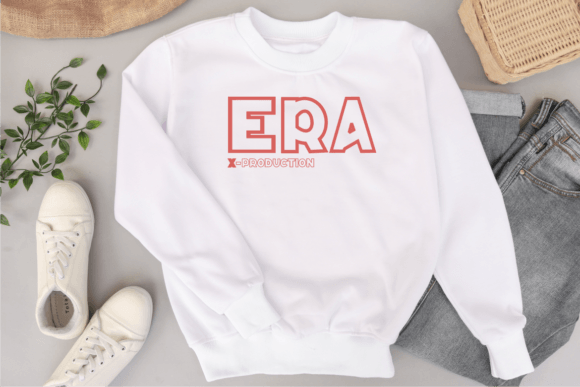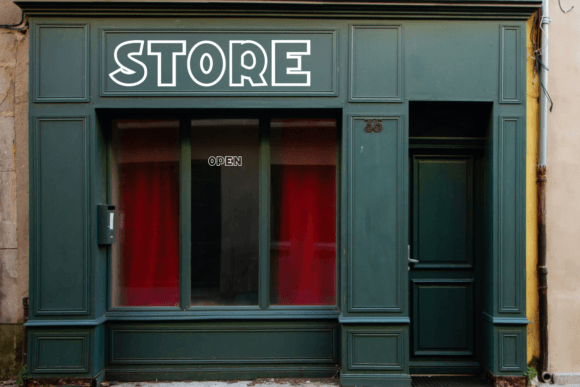
Introduction to Ralixet Outline Font
Ralixet Outline is a fun and quirky display font.
Add it confidently to your creative projects and you will love the results .
Key Features of Ralixet Outline Font
Why Choose Ralixet Outline Font?
Ralixet Outline Font offers exceptional quality and versatility, making it a valuable addition to your design toolkit. Whether you’re creating for personal projects or commercial use, Ralixet Outline Font delivers professional results.